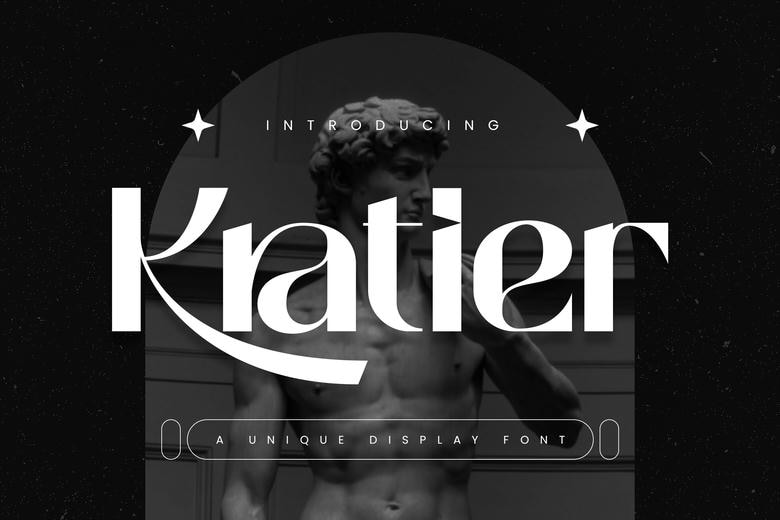
Kratier Font
Kratier is a truly unique serif font with daring and unconventional shape of the letters and forms of letters. Ideal for use in posters, logos, headlines in a creative branding process and any other creative endeavor, Kratier provides the young and fresh vision of type.
Its elegant, simple forms and clear business orientation make it ideal for designs that require a high visibility. Whether you are doing web- or print-based media job, Kratier adds that liveliness and that soup-up factor to your work that your designs demands to get attention.
Kratier Serif Font